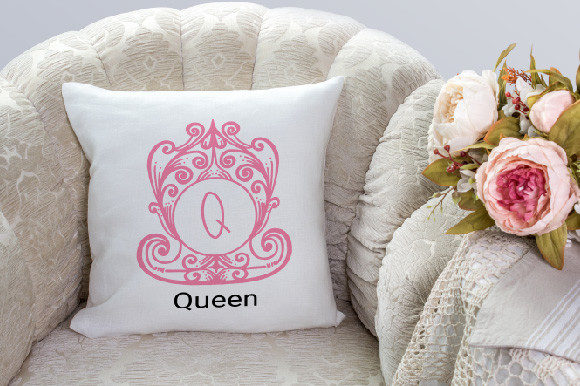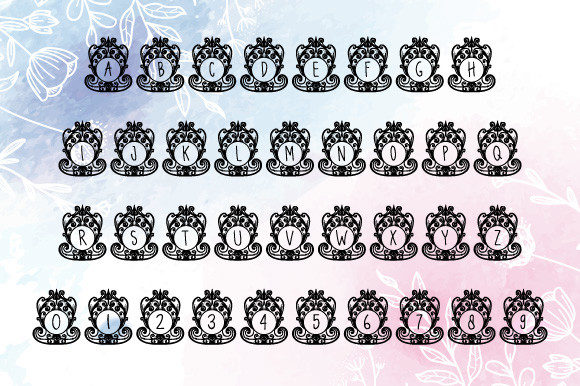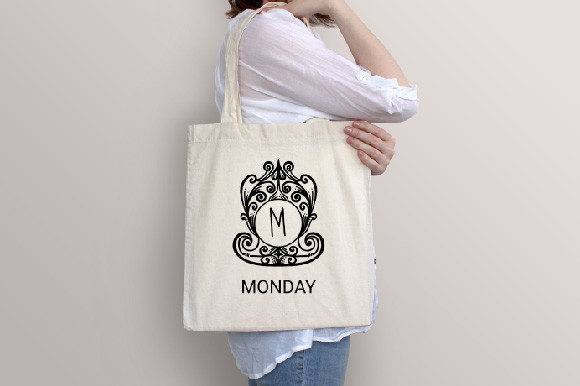
Introduction to Java Ornament Monogram Font
Have you ever stared at a blank page, struggling to find the perfect font to bring your creative project to life? I know I have. It’s a moment of frustration, but also a spark of inspiration. As designers, we’re constantly seeking that one special font that elevates our work and makes it truly unique. For me, that moment came when I discovered the Java Ornament Monogram Font.
This stunning initial typeface is not just a pretty face; it’s a valuable resource for designers looking to add a touch of elegance and sophistication to their work. With its intricate details and ornate design, the Java Ornament Monogram Font is perfect for creating high-quality invitations, logos, and more. Plus, its transparent background makes it easy to layer and customize to fit your design needs.
Key Features of Java Ornament Monogram Font
- High-quality design ideal for creative projects requiring a touch of elegance and sophistication.
- Features intricate ornamentation and ornate details, perfect for adding a luxurious feel to your designs.
- Includes a transparent background, making it easy to overlay on various backgrounds and designs.
- Each character is carefully crafted to ensure crisp and clear readability at high resolutions (up to 300 DPI).
- Perfect for use in a variety of design contexts, from wedding invitations to luxury branding materials.
Honest Review: Java Ornament Monogram Font
I recently had the chance to work with the Java Ornament Monogram Font, and I must say, it’s been a game-changer for my creative projects. The level of detail and sophistication in this font is simply stunning.
- ✨ The intricate design and ornaments add a touch of elegance to any text
- ✨ The transparent background option allows for seamless integration with any design
- ✨ It’s a high-quality font that’s perfect for any design project
One of the things that stands out about this font is its versatility. Whether you’re working on a wedding invitation, a branding project, or just a fun design, the Java Ornament Monogram Font is a great choice.
- ⚠️ Limited character set, may not be suitable for extensive text-based projects
- ⚠️ Not ideal for digital use, as the ornaments may not scale well
The Java Ornament Monogram Font is a unique and high-quality design resource that can add a touch of elegance to your creative projects. This font features intricate ornaments and monogram designs that can be used in a variety of applications.
To get the most out of the Java Ornament Monogram Font, use it on a transparent background to create a sense of depth and dimension. Experiment with different font sizes and combinations to create unique and eye-catching designs.
The Java Ornament Monogram Font is ideal for a range of creative projects, including:
- Wedding invitations and decorations
- Party and event invitations
- Custom logos and branding
- Personalized gifts and stationery